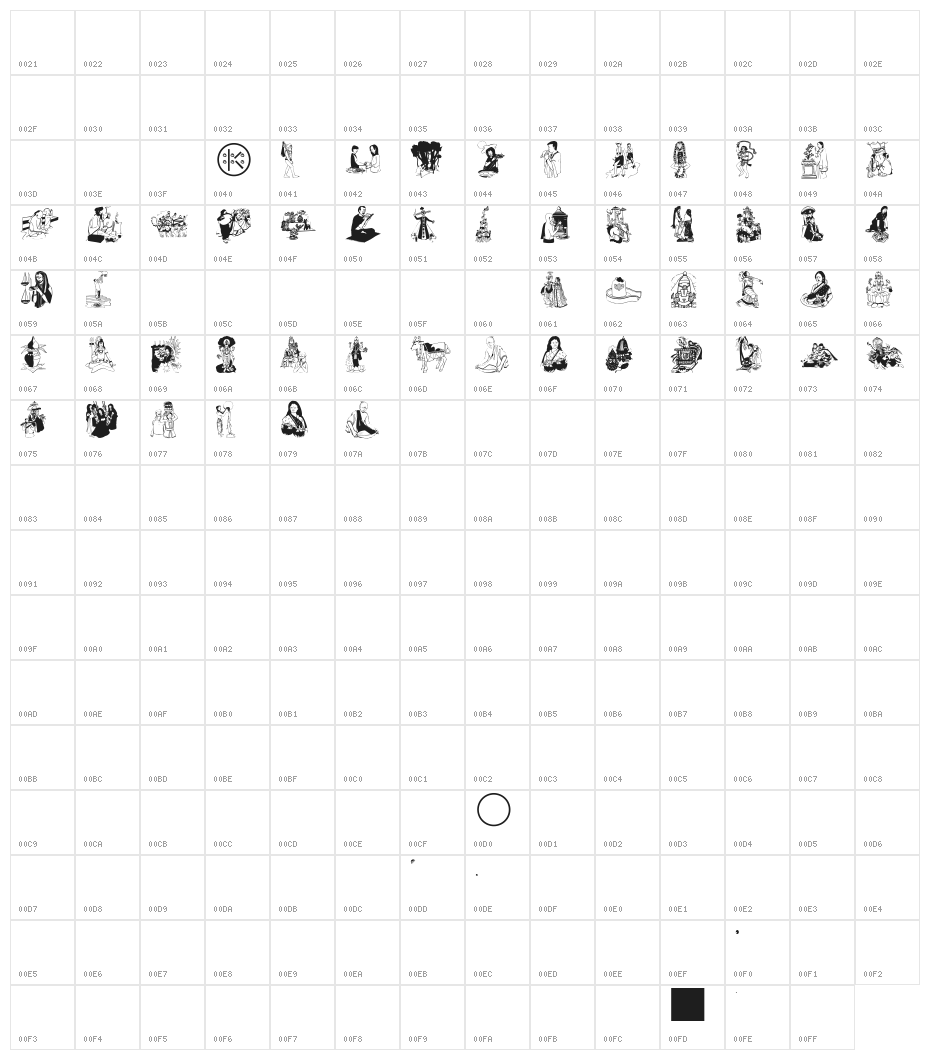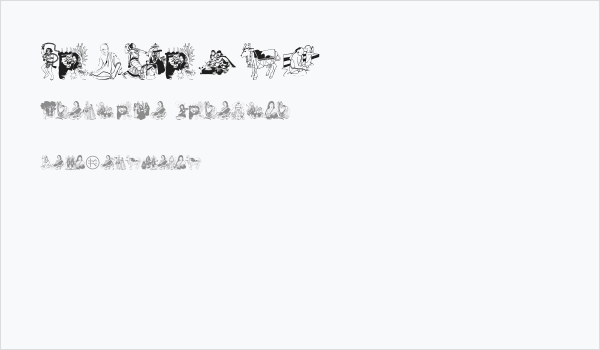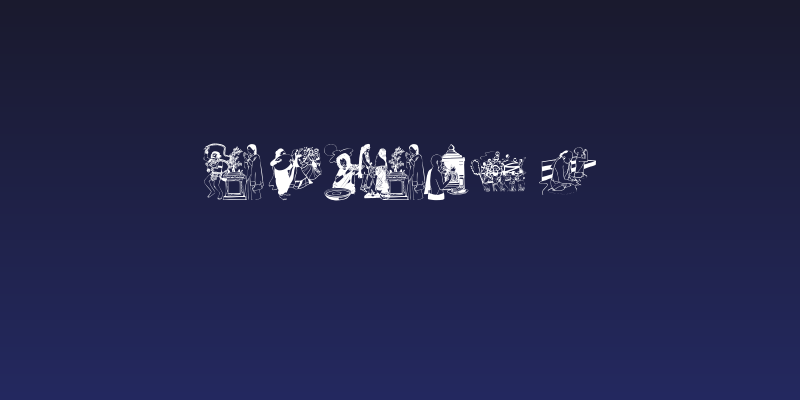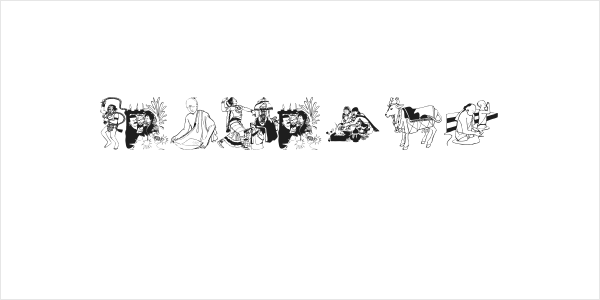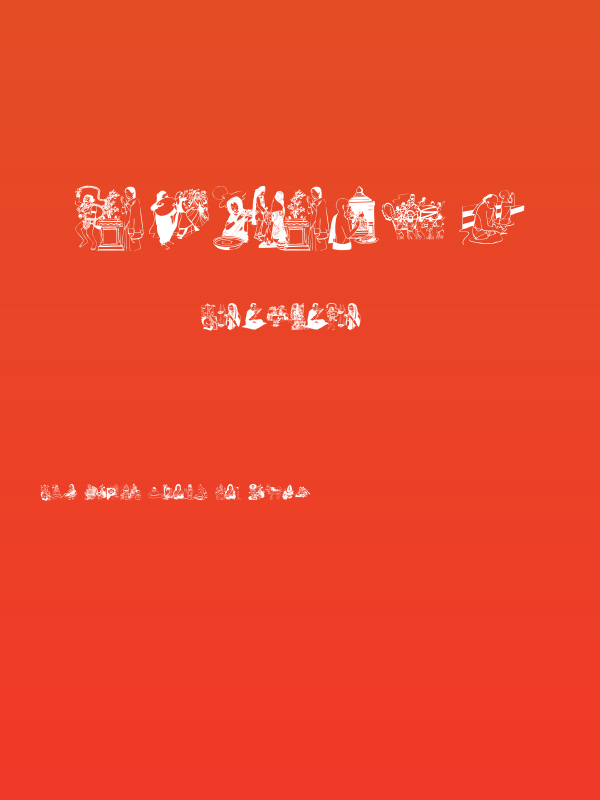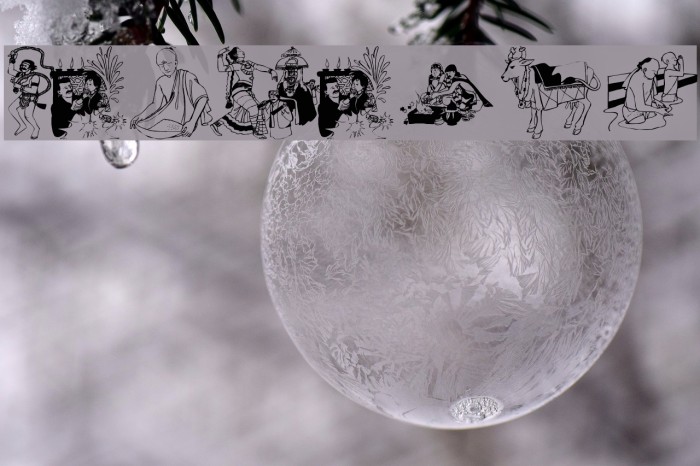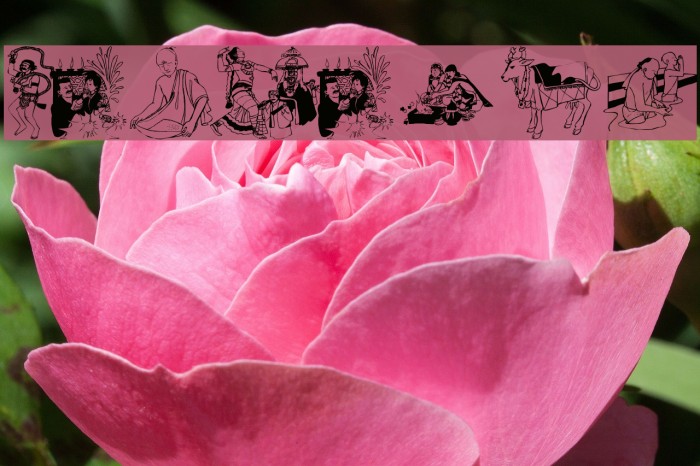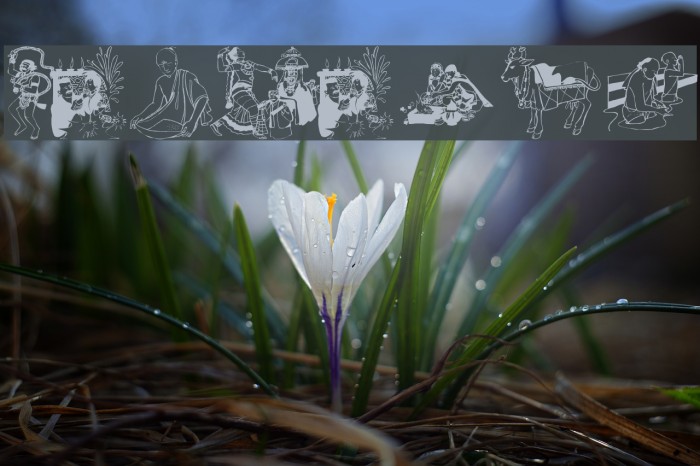
HinduismK Font
HinduismK Description
A highly detailed decorative font featuring intricate illustrations of Hindu deities, rituals, and cultural symbols in place of standard letterforms and numerals. Each character is represented by a unique, complex black-and-white drawing, making the set visually rich and culturally themed.
| Overall Style | Decorative, Thematic, Cultural |
| Use Case | Logos, Headlines, Posters, Educational graphics |
| Proposed Projects | Religious event posters, educational materials about Hinduism, themed invitations, cultural presentations, decorative headings. |